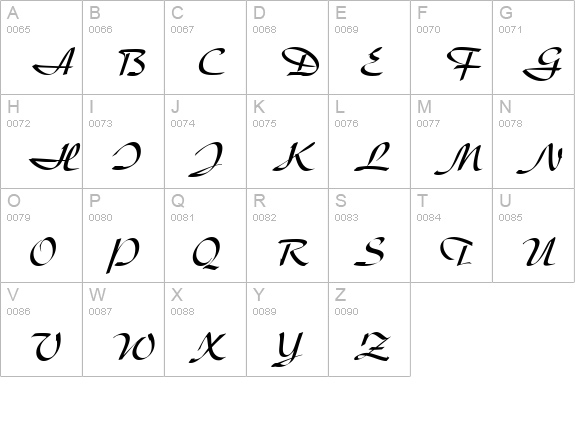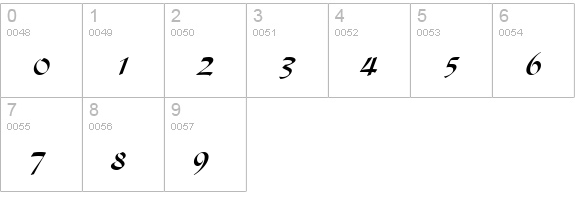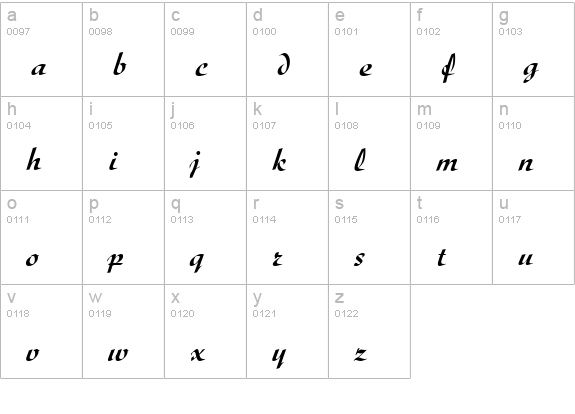
Disciple-Regular Font Details
Disciple-Regular is the standard, neutral variant in the Disciple typeface family \xE2\x80\x94 well suited to general body text, paragraphs, and standard typographic work.
Disciple-Regular is a versatile and elegant font that exudes a sense of sophistication and modernity. Its clean lines and balanced proportions make it perfect for a wide range of design projects, from branding to editorial design. The simplicity of the font allows for easy readability while still maintaining a touch of uniqueness. What sets Disciple-Regular apart is that it is freely available for download at FontsMarket.com. This means that you can incorporate this stylish font into your projects without any cost, making it a valuable addition to your font library. Whether you're designing a website, creating a logo, or working on a print layout, Disciple-Regular is sure to elevate your designs with its timeless appeal. Get your hands on this free font today and unleash your creativity like never before!